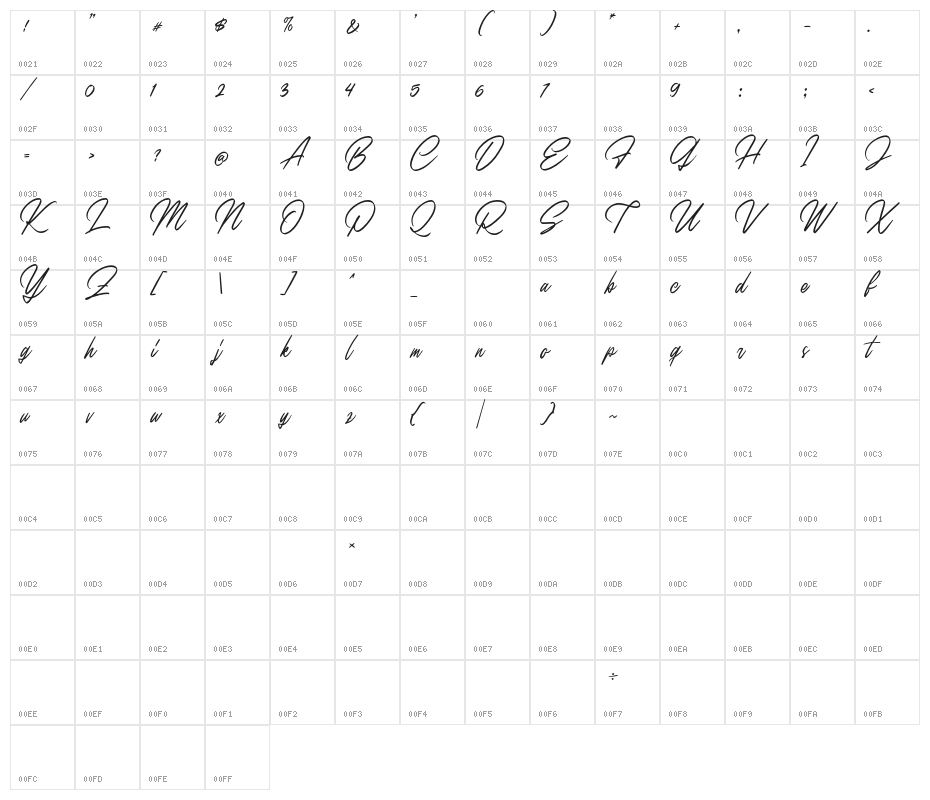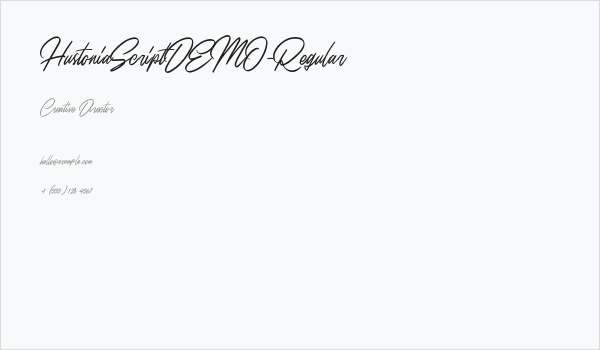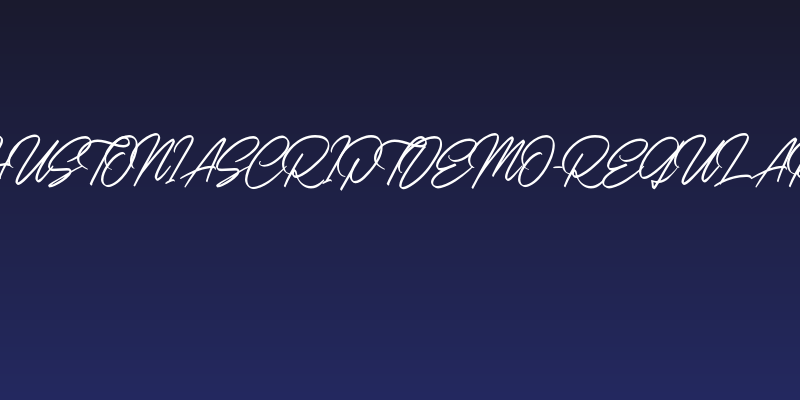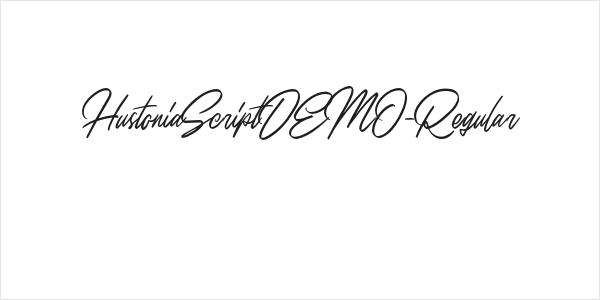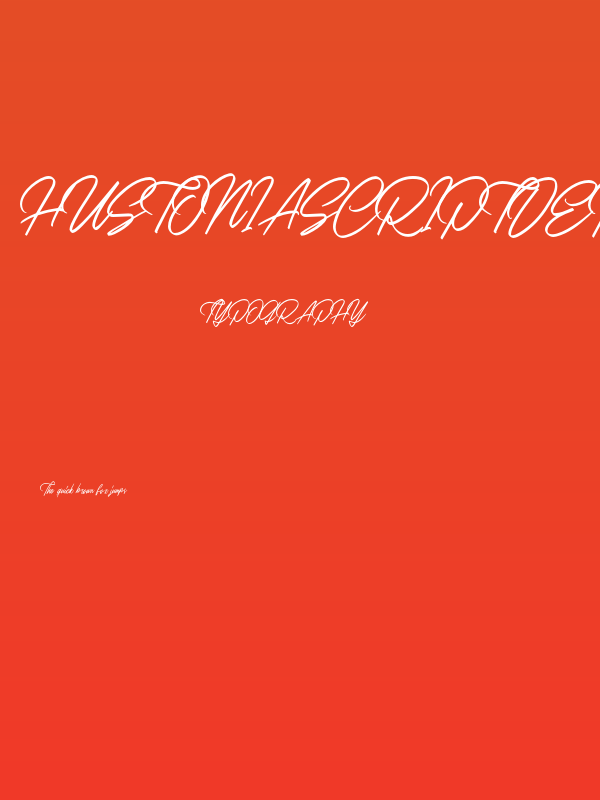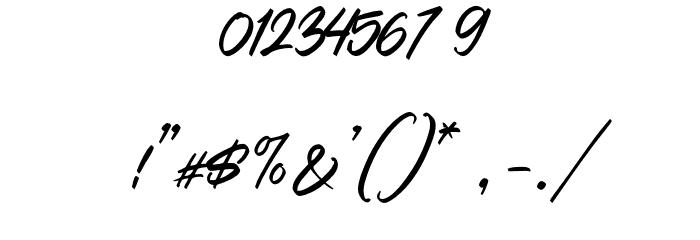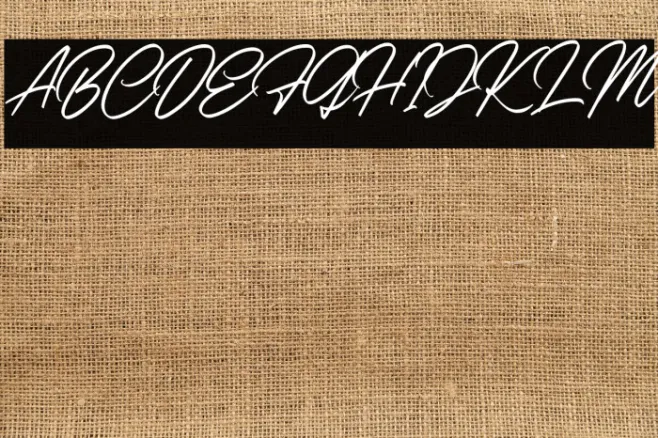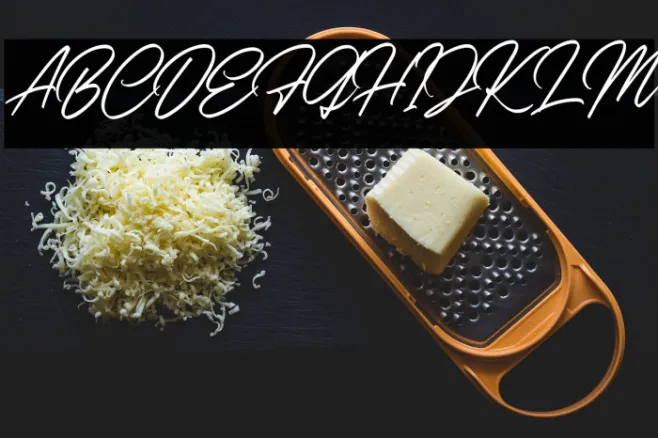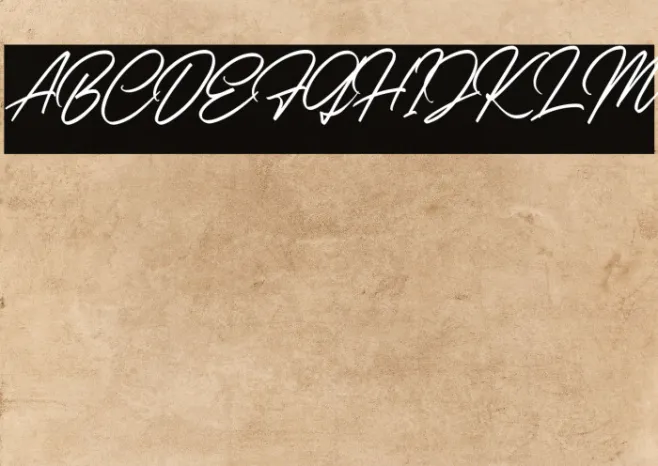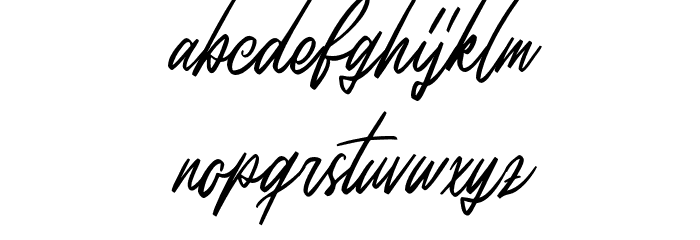
HustoniaScriptDEMO-Regular Font
HustoniaScriptDEMO-Regular Description
This font features a flowing, cursive style that mimics elegant handwriting. The letters are connected, creating a smooth and continuous script that is both stylish and legible. The uppercase letters are bold and sweeping, with dramatic flourishes that add a touch of sophistication. The lowercase letters maintain a consistent flow, with rounded forms and subtle slants that enhance readability. The numerals are distinct and well-integrated into the script style, maintaining the overall aesthetic. Special characters are thoughtfully designed to match the script's fluidity, ensuring a cohesive look across all text elements.